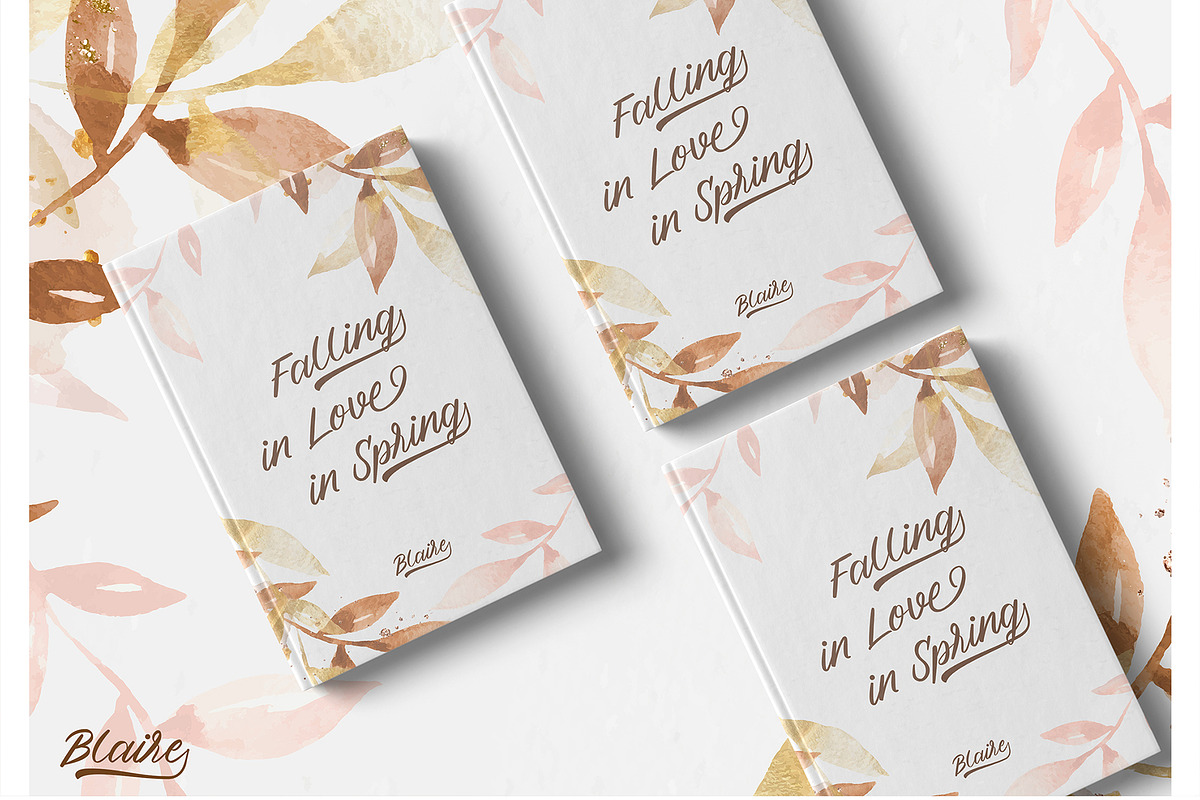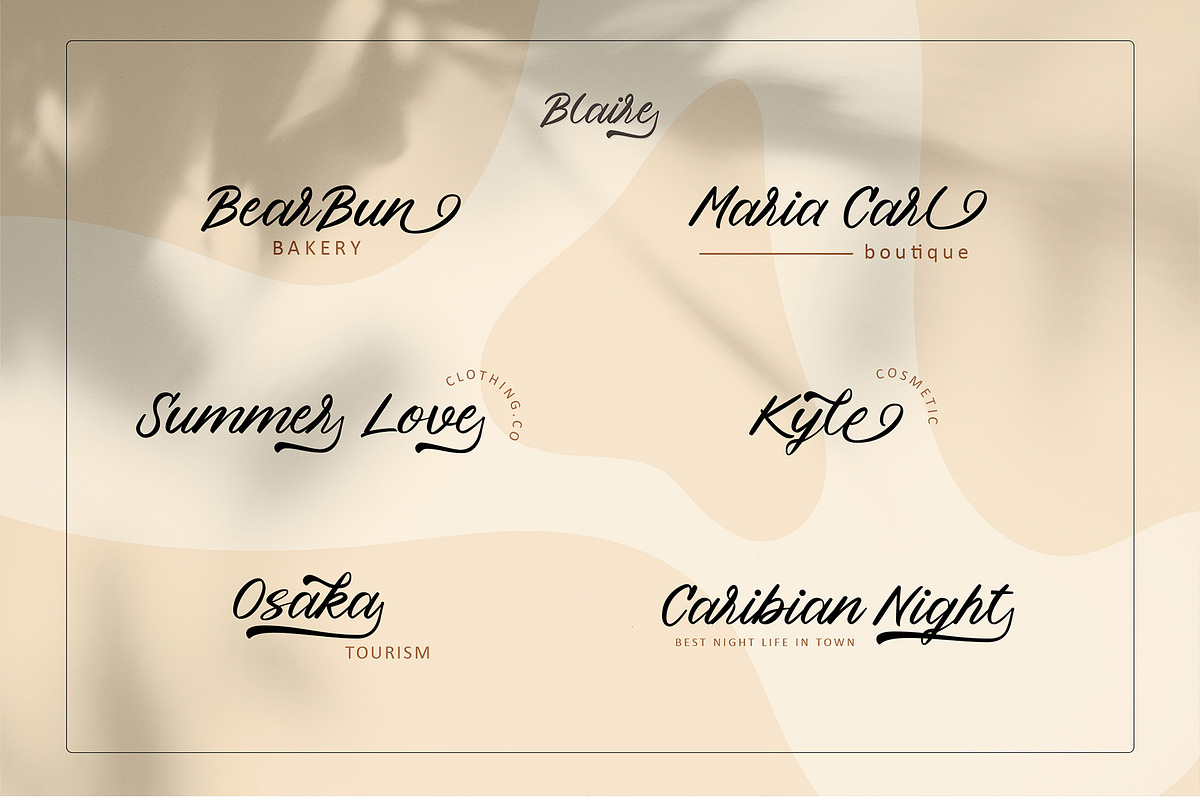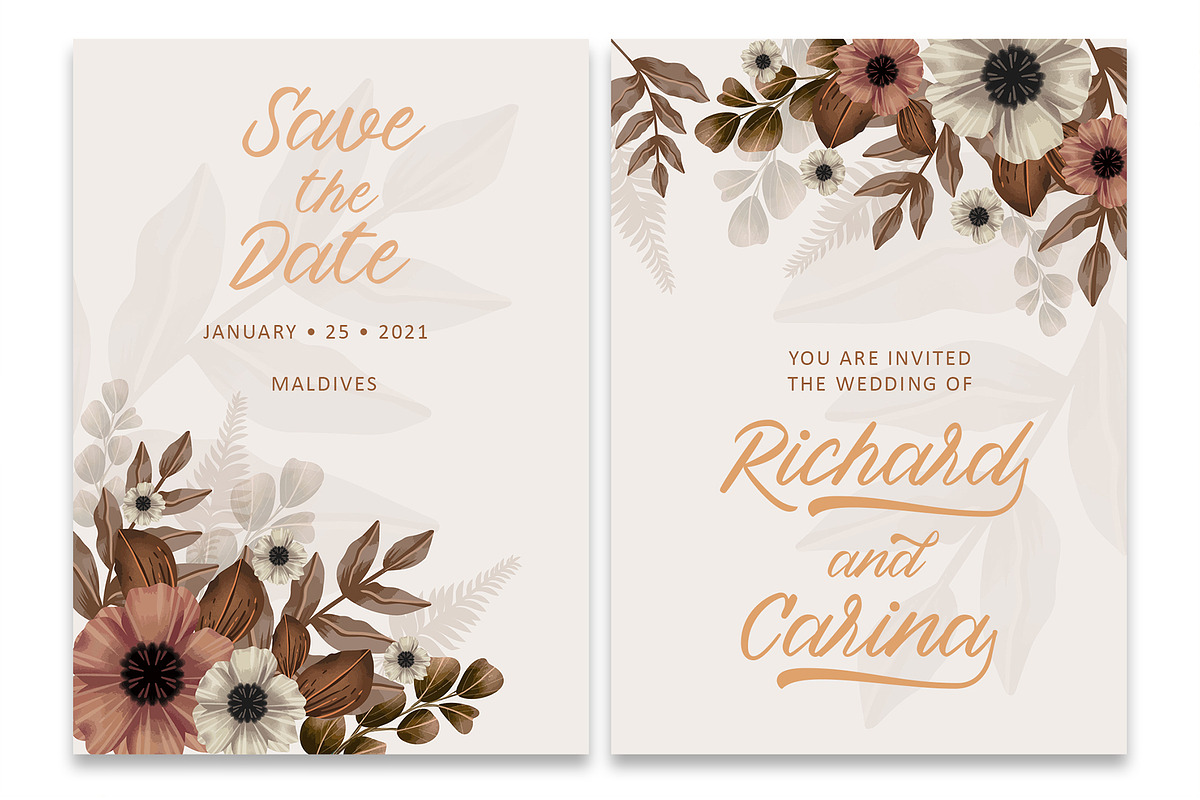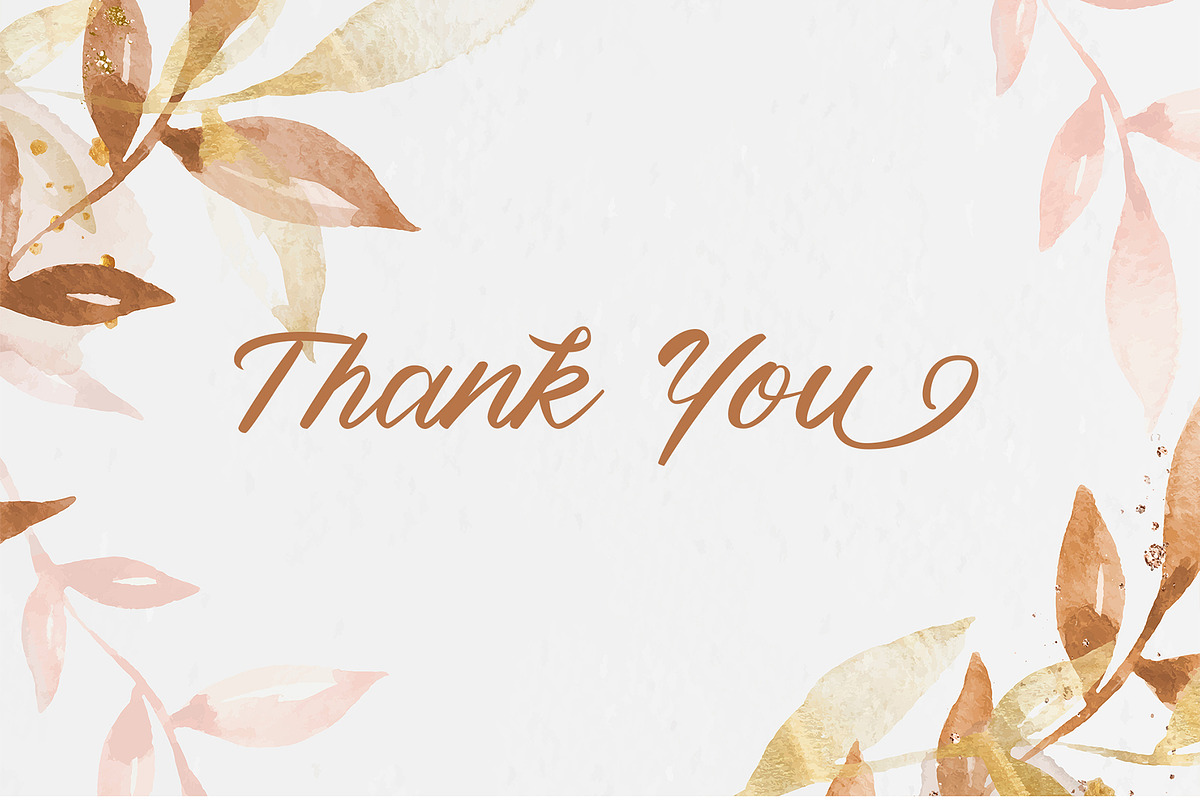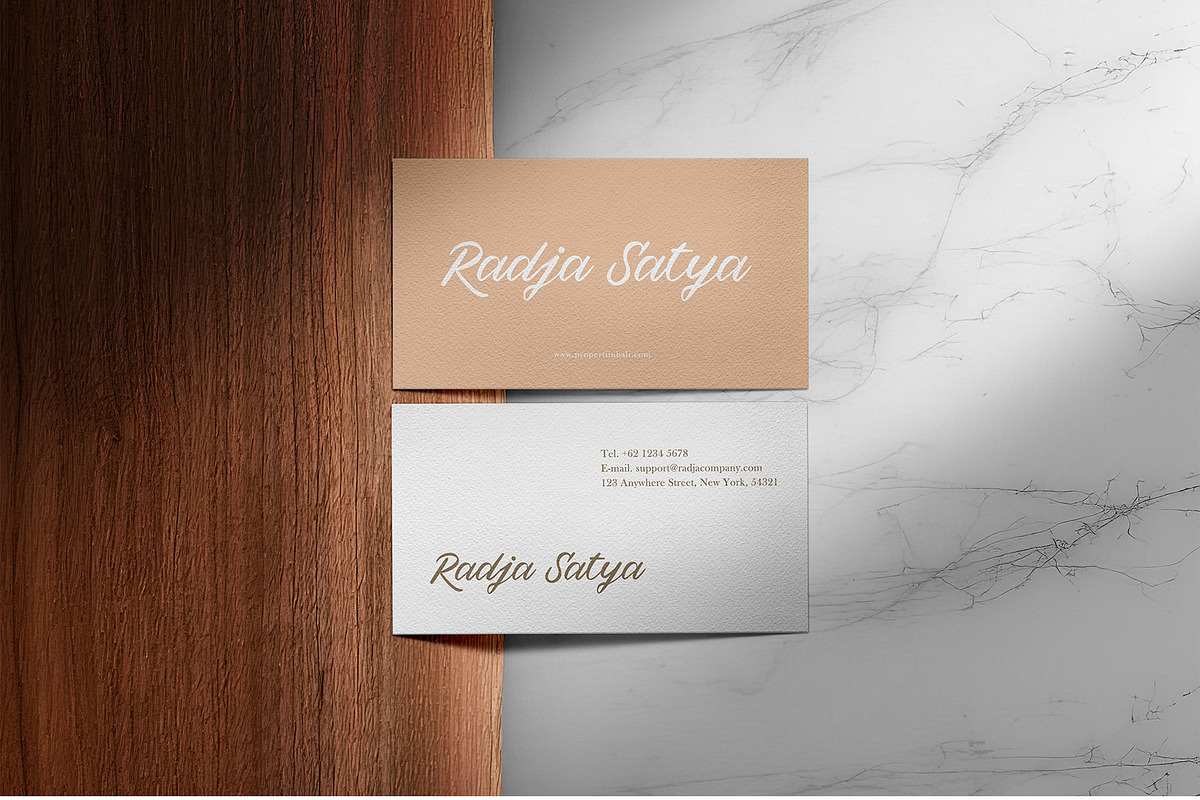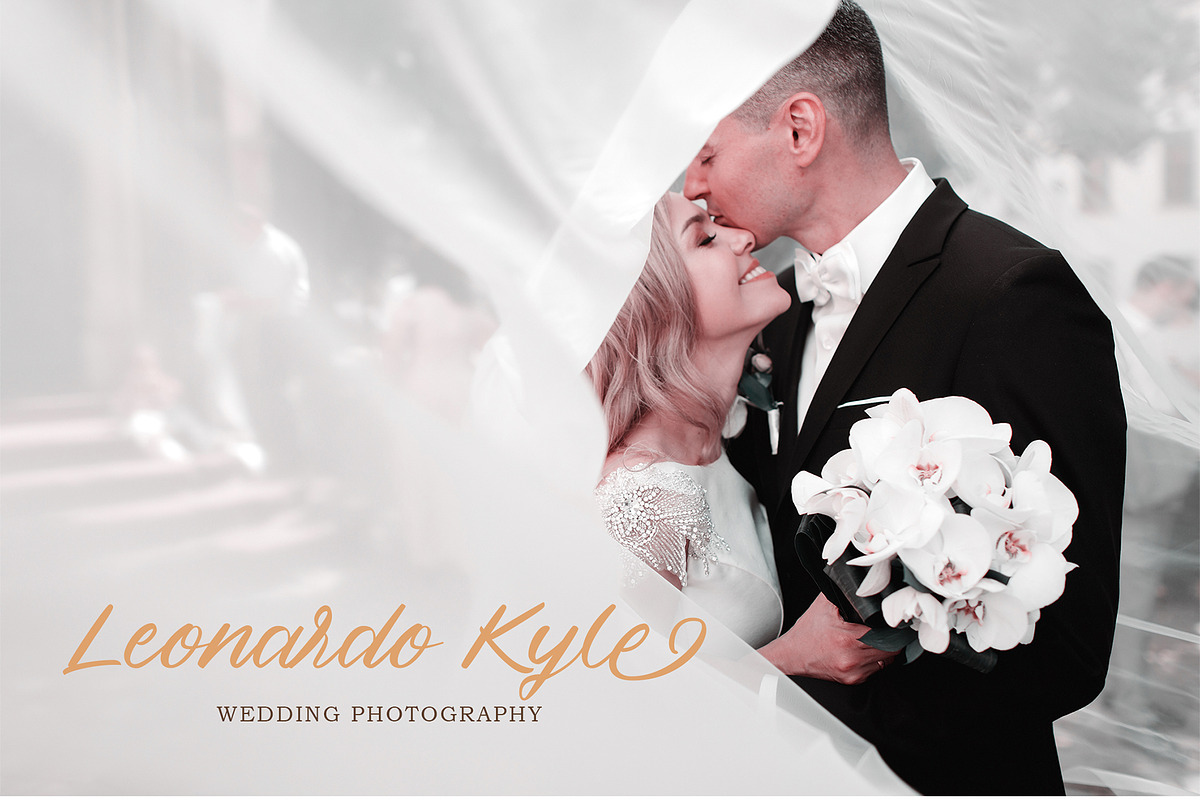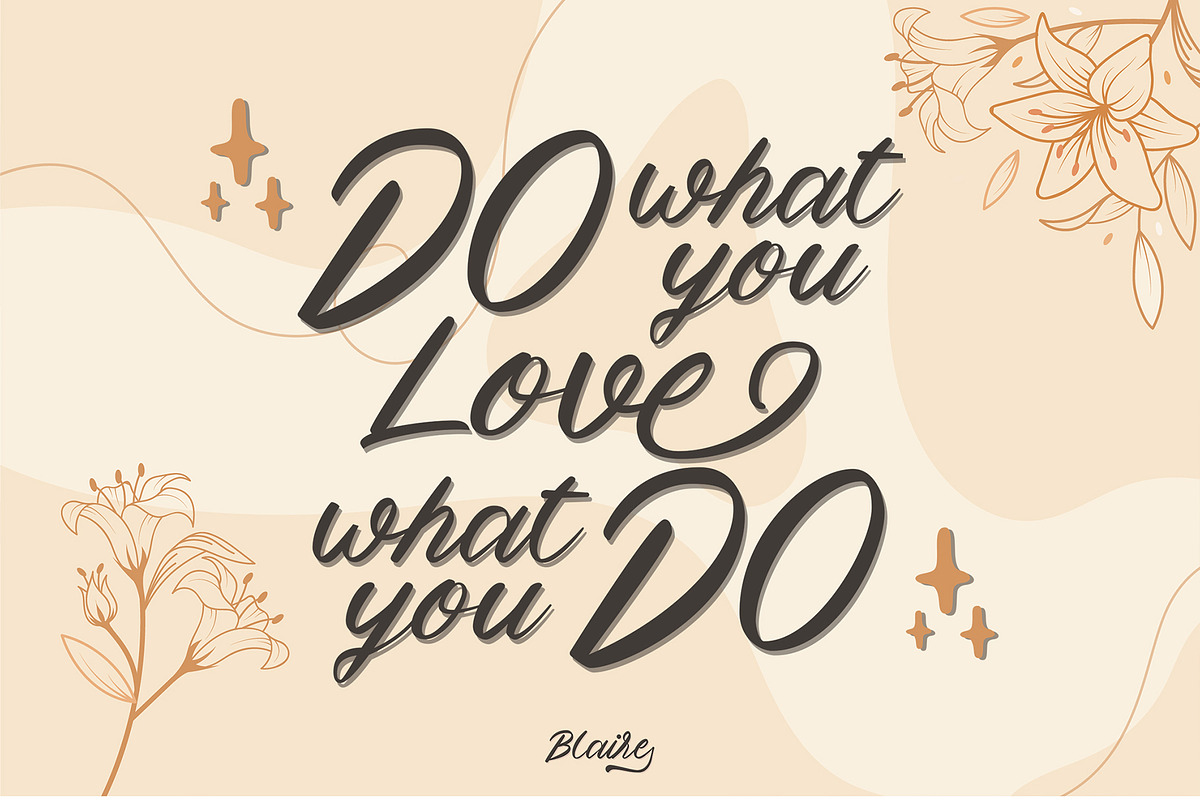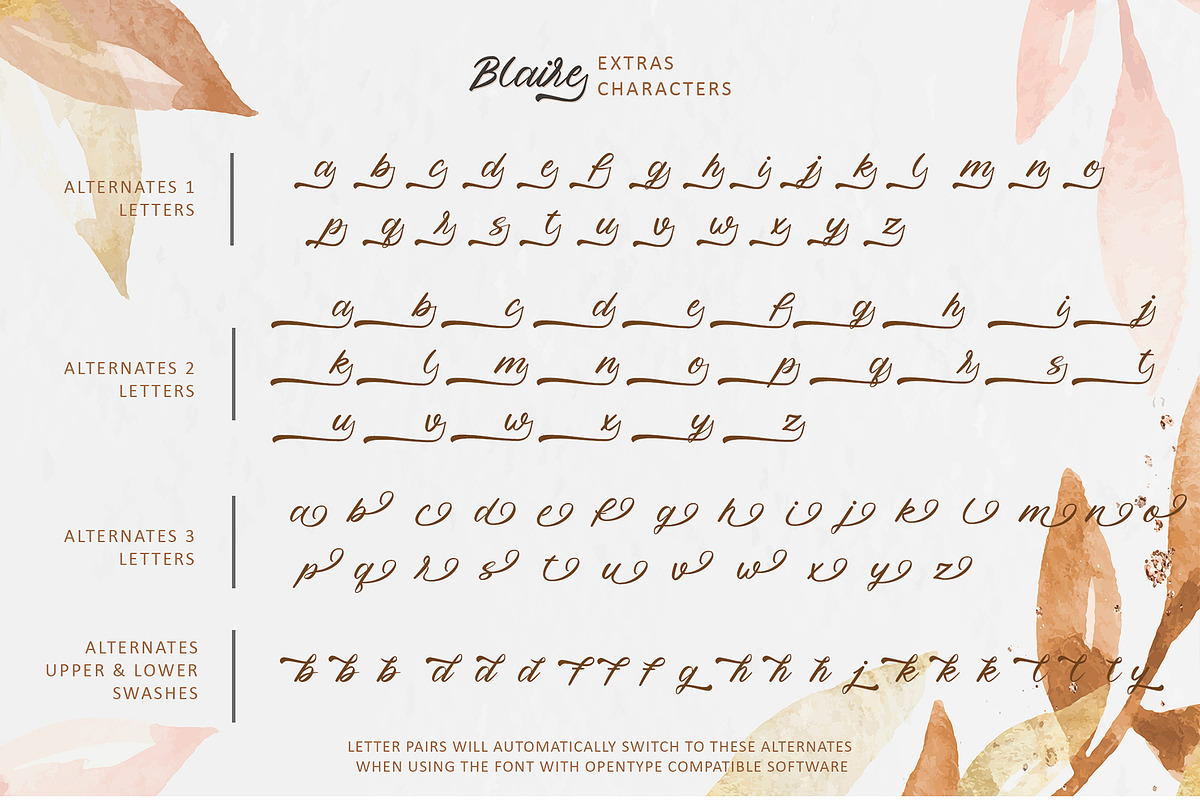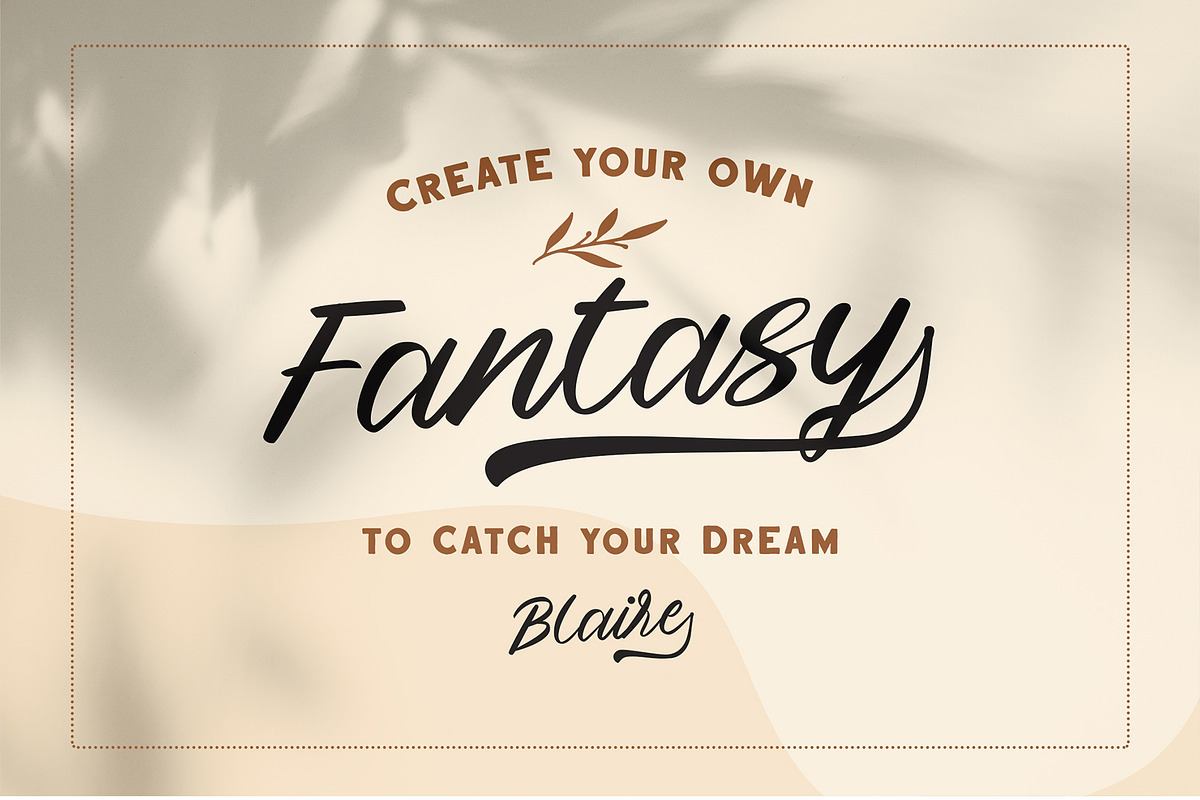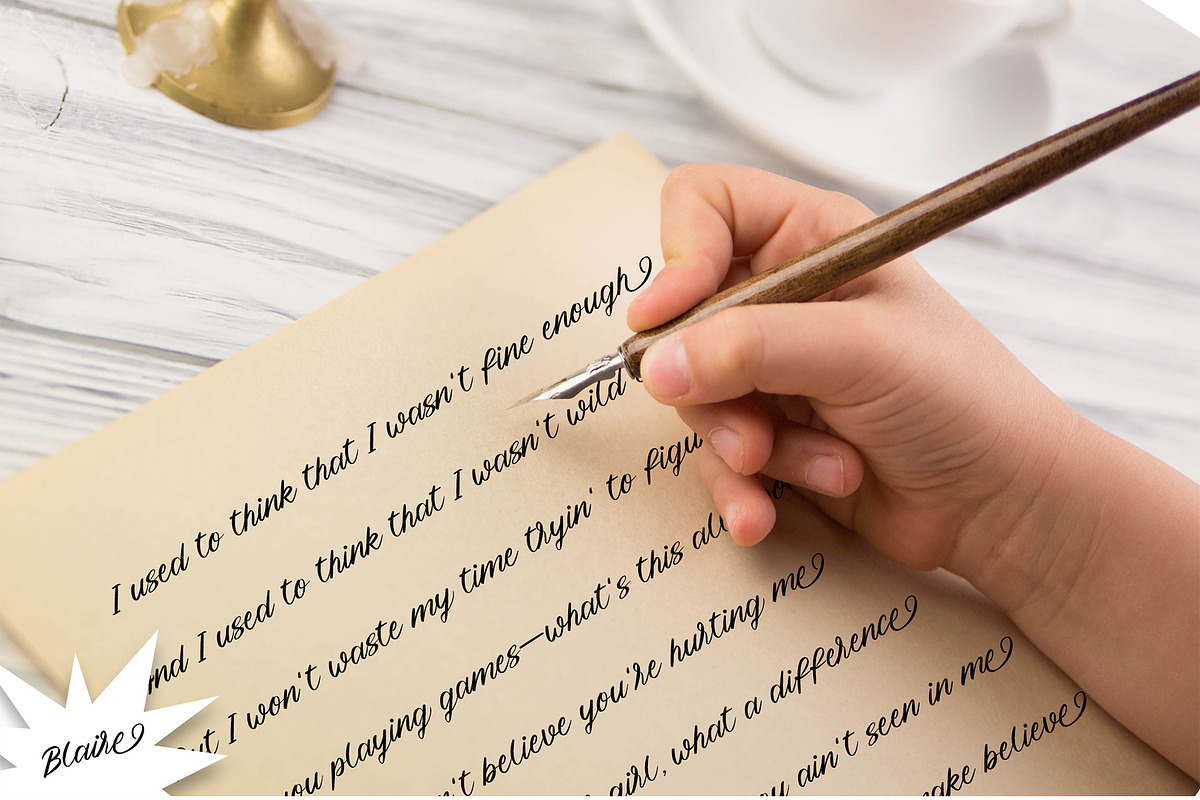
Blaire - Handwritten Font
Blaire - Handwritten Font by erlosDESIGN
Blaire is a delicate, elegant and flowing handwritten font. It has beautiful and well balanced characters and as a result, it matches a wide pool of designs. Blaire is PUA encoded which means that you can access all of the glyphs and swashes with ease!